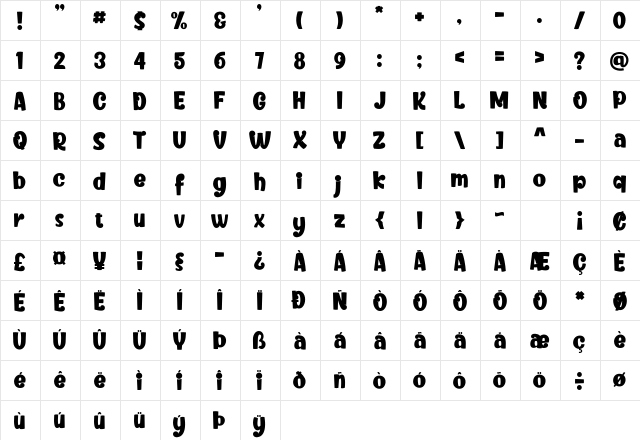
Kero kero Regular Font Preview
Kero kero Regular
Kero kero Regular Font Details
| Designer | Lettersiro 2018 |
Design Context for Kero kero Typeface
Kero kero offers clean, dependable letterforms without strong stylistic allegiance, making it a practical choice for designers who need flexibility.